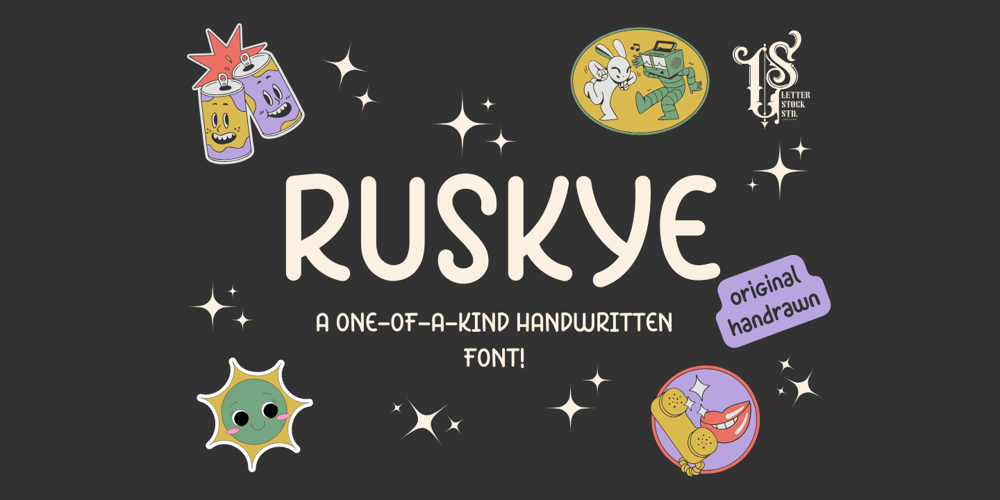
Ruskye Font Family was designed by Studio LetterStock and published by LetterStock. Ruskye contains 1 styles and family package options. Introducing “Ruskye” – Your Original Hand-Drawn Retro Lettering FontStep into the nostalgic embrace of “Ruskye,” a font crafted with a blend of original hand-drawn charm and retro lettering vibes. Perfect for posters, invitations, and vintage-themed branding projects, this font encapsulates the essence of a bygone era, offering a timeless touch to your designs.Key Features: Original Hand-Drawn Craftsmanship: Each character in “Ruskye” is meticulously hand-drawn, adding a touch of authenticity to your projects. Retro Lettering Vibes: Immerse your designs in the classic charm of retro lettering, making “Ruskye” an ideal choice for projects seeking a vintage aesthetic. Why Choose “Ruskye”: Craft posters that evoke the timeless spirit of hand-drawn artistry. Design invitations that transport recipients to the golden era of retro aesthetics. Establish a brand presence with a font that effortlessly captures the essence of vintage lettering. Download “Ruskye” Now and Infuse Your Designs with Timeless Retro Charm!